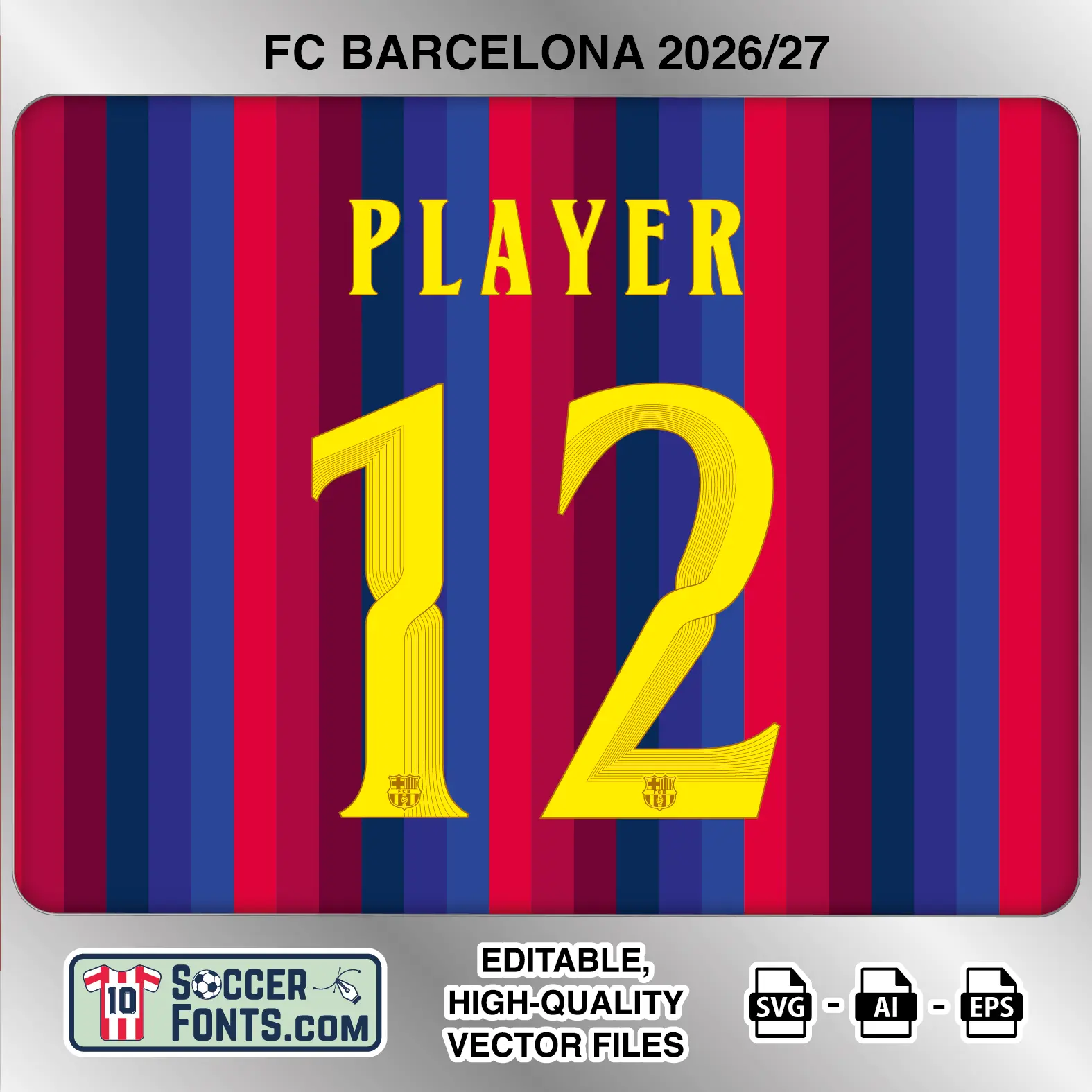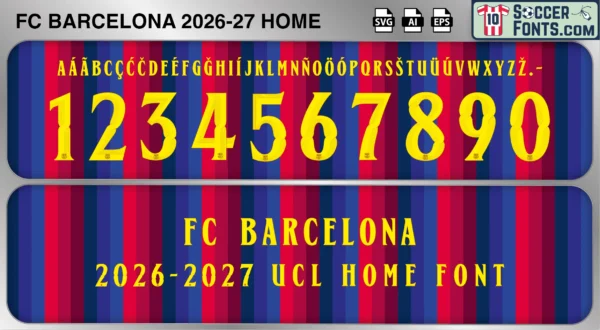
FC Barcelona 2026-27 Font Home UCL
Download the FC Barcelona 2026-27 Font Home UCL, an editable soccer jersey lettering design in vector format inspired by the FC Barcelona home kit typography used in UEFA Champions League matches during the 2026-27 season. This football font artwork is prepared for football shirt recreations, custom jersey projects, football kit mockups and sports graphic design workflows.
The FC Barcelona 2026-27 Font Home UCL is specifically associated with the official lettering system used on Barcelona’s home shirt in UEFA Champions League competition. Unlike the domestic league kit, Barcelona uses a dedicated UEFA competition font that follows Champions League regulations and creates a distinct visual identity for European nights. The FC Barcelona 2026-27 Font Home UCL reflects the typography worn during continental matches at the Estadi Olímpic and away venues across Europe, making it an essential reference for authentic Champions League shirt recreations. Barcelona European shirts from this era are expected to remain highly collectible among football shirt enthusiasts, kit historians and sports designers documenting the club’s latest UEFA campaigns.